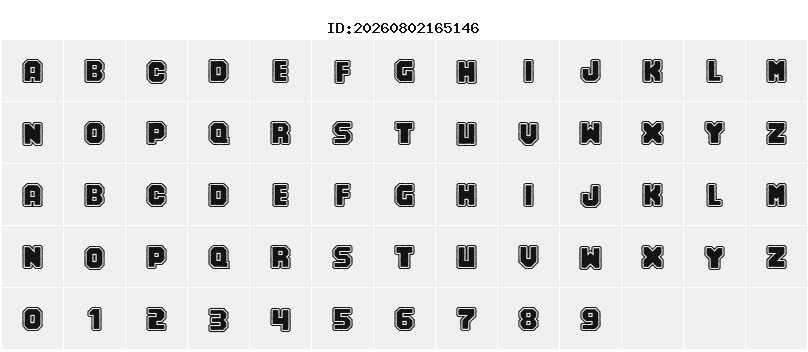
• Font Name: Numero 10 Clean
• Designer: imagex
About Numero 10 Clean.ttf
Numero 10 Clean.ttf is a modern, elegant sans-serif font designed for ultimate readability and visual harmony. Perfect for branding, headlines, web design, and print materials.